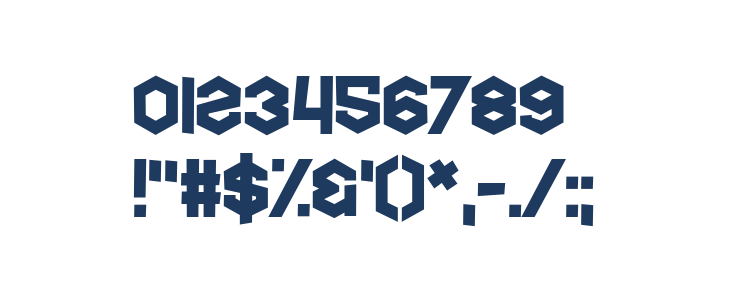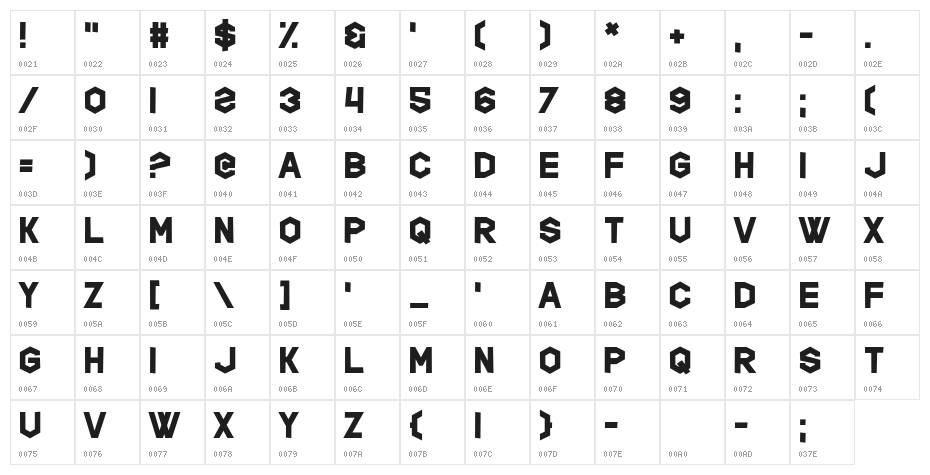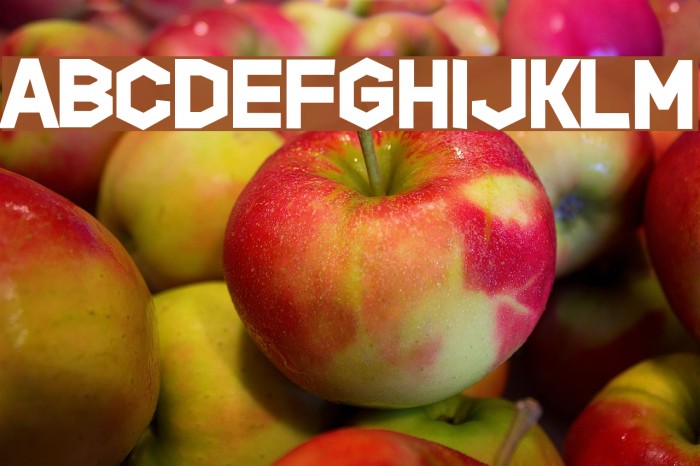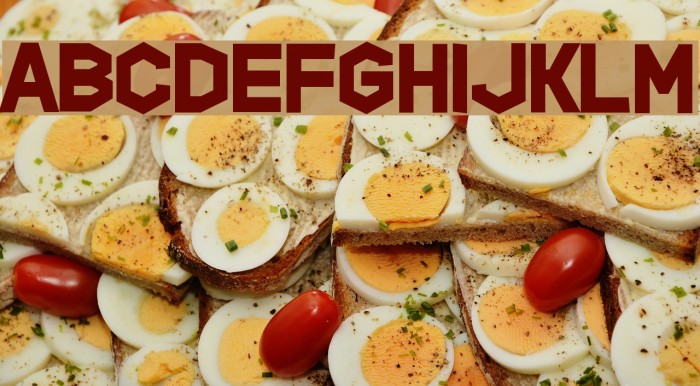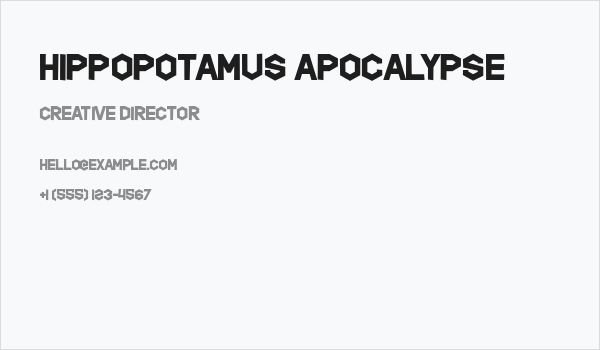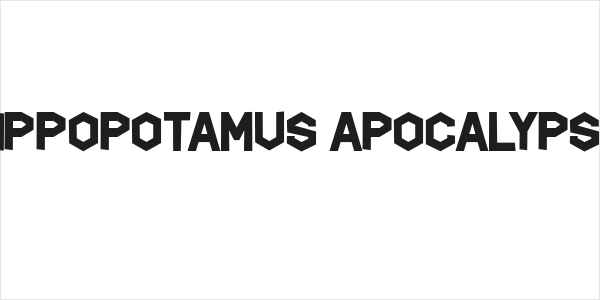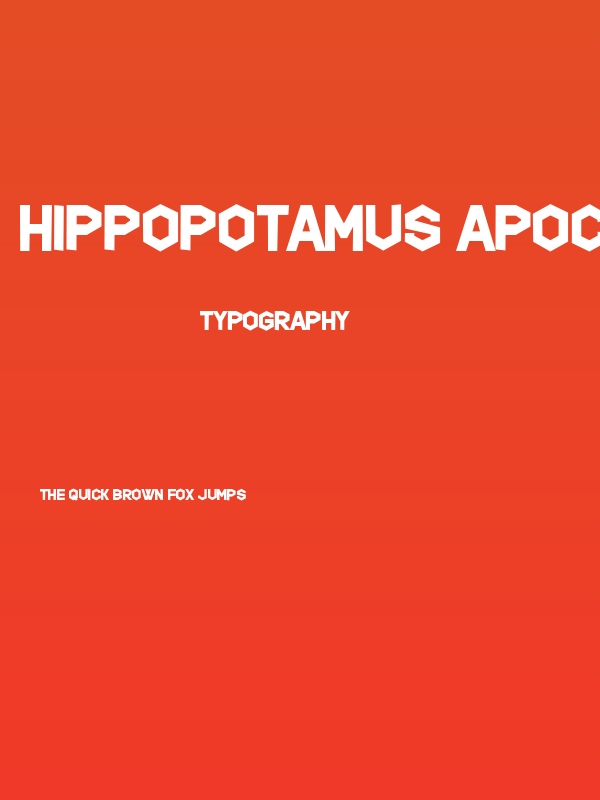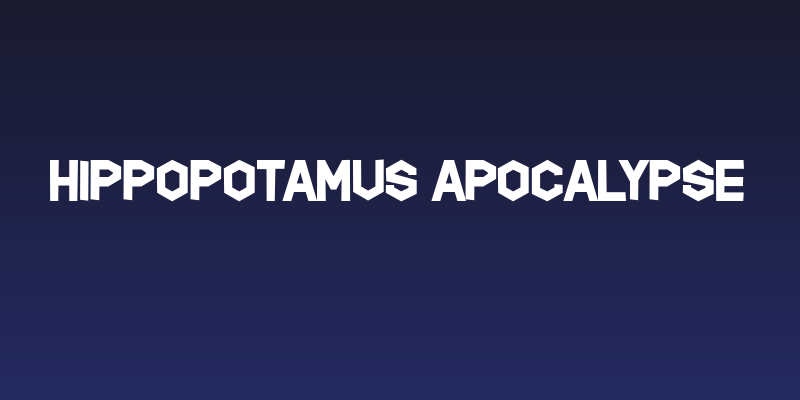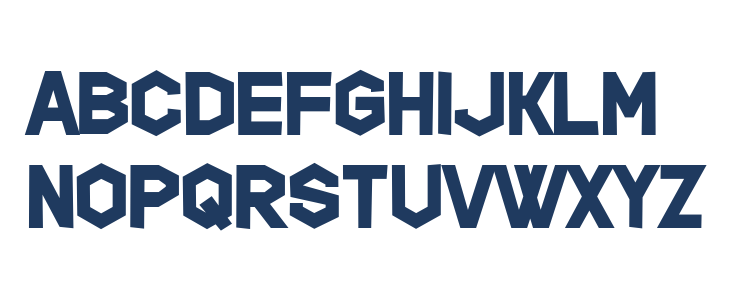
Hippopotamus Apocalypse Font
Hippopotamus Apocalypse Description
This font features a bold, geometric design with a strong, impactful presence. The characters are constructed with thick, angular lines that create a sense of depth and dimension, reminiscent of a 3D effect. The uppercase letters are particularly striking, with sharp edges and a blocky appearance that commands attention. The numerals and special characters maintain this bold style, ensuring consistency across all elements. This font is ideal for projects that require a modern, edgy look, such as posters, logos, or branding materials. Its unique style makes it stand out, providing a memorable visual impact.
| Proposed Projects | Ideal for posters, logos, branding materials, and any project needing a modern, edgy look. |